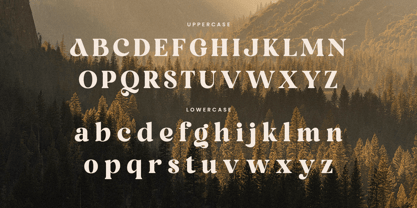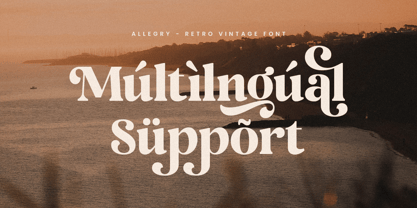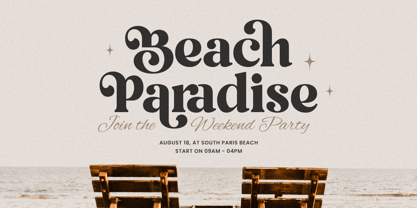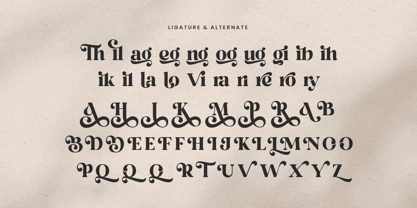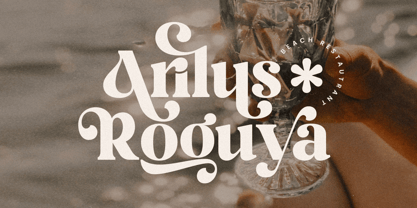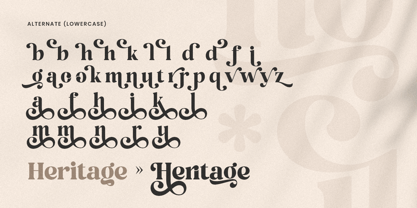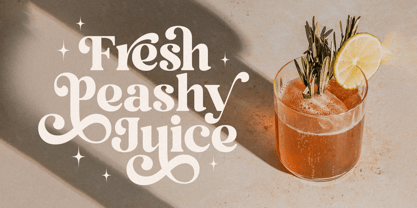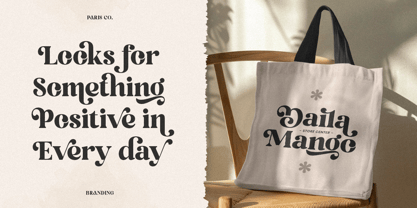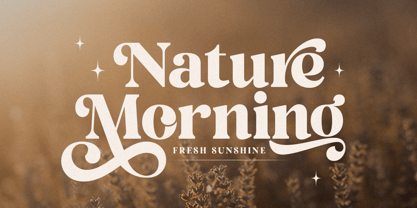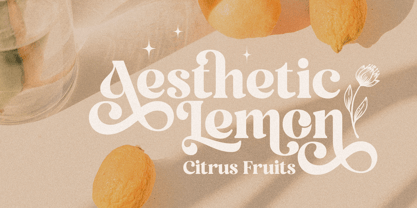
Brown Orange
by Sensatype Studio
The Brown Orange Font Family was designed by Zamroni Hamzah and published by Sensatype Studio. Brown Orange contains 2 styles and family package options. More about this family
Brown Orange - Retro Vintage Font
Brown Orange is a retro vintage font inspired by the warm hues and timeless design of the past. This font is perfect for creating a nostalgic feel in branding, posters, packaging, and more. Its bold yet elegant design adds character to your projects, making it stand out while maintaining a classic appeal.
Whether you are working on a branding project that requires a touch of vintage charm or a creative design that calls for something unique, Brown Orange offers flexibility with its alternate and ligature characters. The smooth curves and rich styling evoke memories of simpler times, making it ideal for retro-themed designs.
Brown Orange comes with multilingual support, ensuring your designs are versatile across different languages. It also includes a wide range of punctuation, numbers, and symbols, making it an excellent choice for logos, typography projects, and packaging designs.
Brown Orange Retro Vintage Font Features:
• Alternate and Ligature Characters Ready
• Unique Punctuation, Number, and Symbol
• Uppercase and Lowercase
• Multilingual Support
• Opentype Features
Designers: Zamroni Hamzah
Foundry: Sensatype Studio